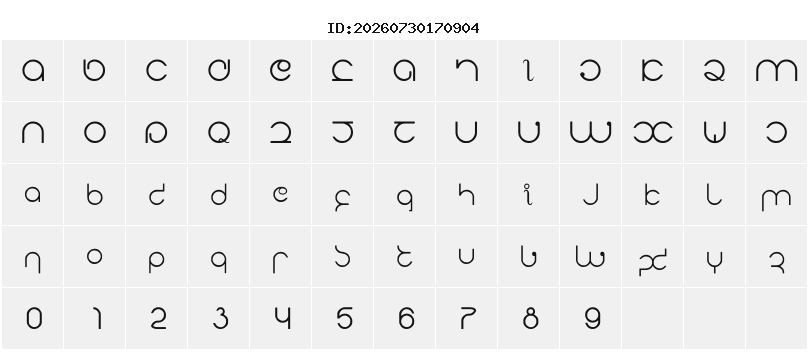
Lupanesc Preview
• Font Name: Lupanesc
• Full Font Name: Lupanesc. Versiunea 1.00
• Version: Versiunea 1.00 Noiembrie 26, 2015, prima publicare
About Lupanesc.ttf
Lupanesc.ttf is a modern, elegant sans-serif font designed for ultimate readability and visual harmony. Perfect for branding, headlines, web design, and print materials.